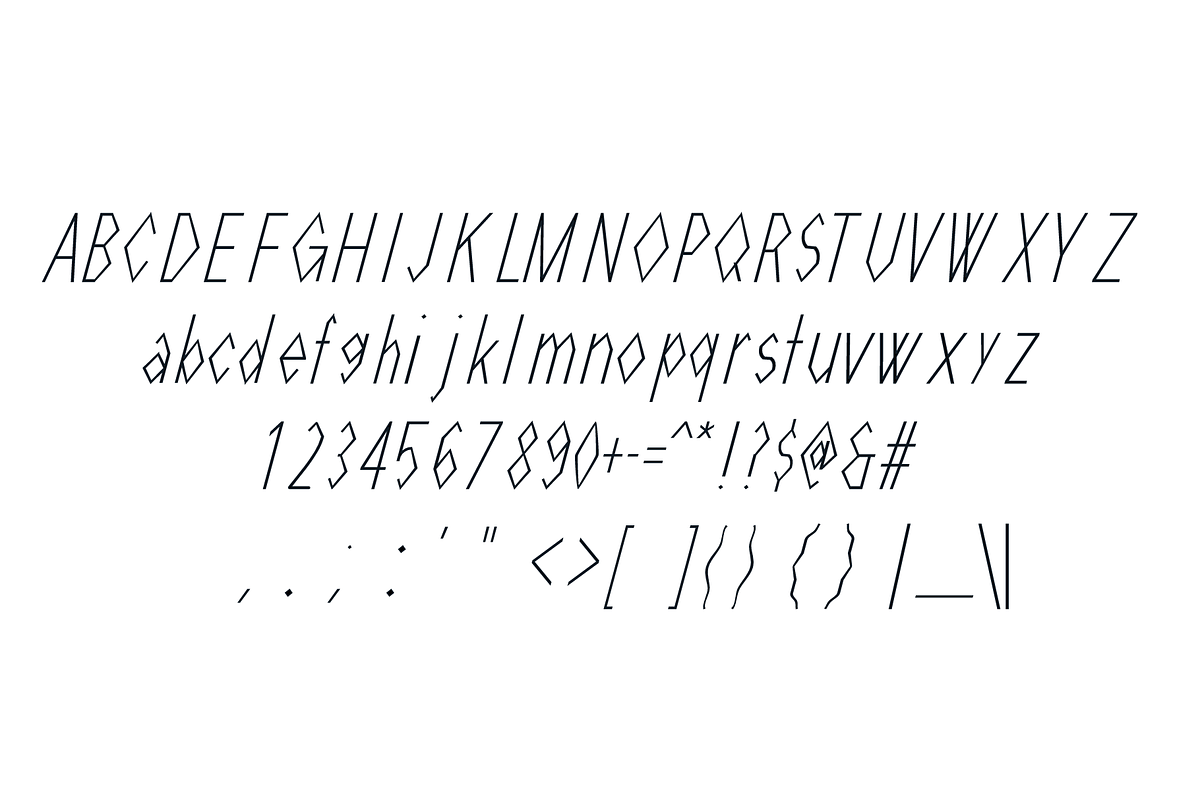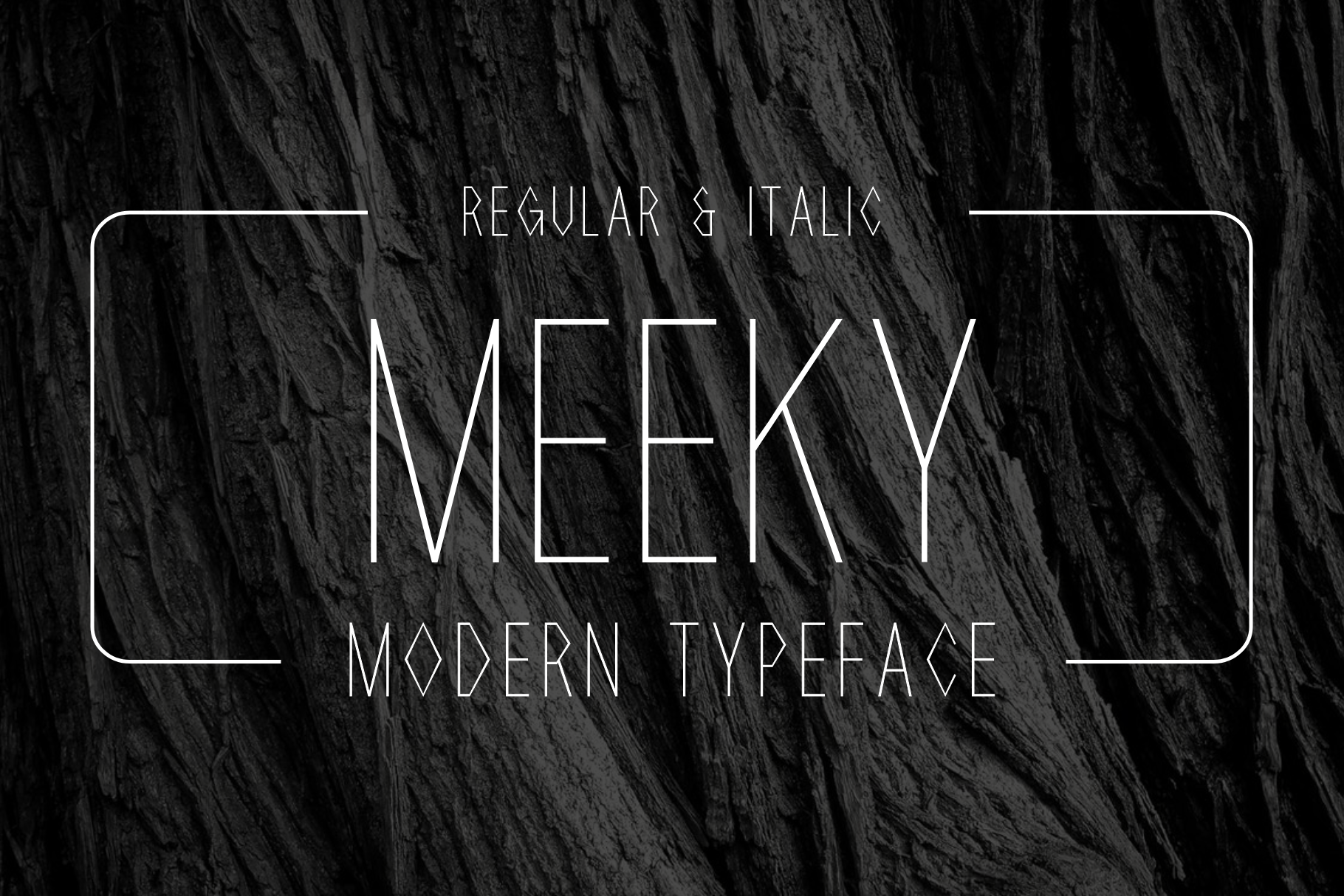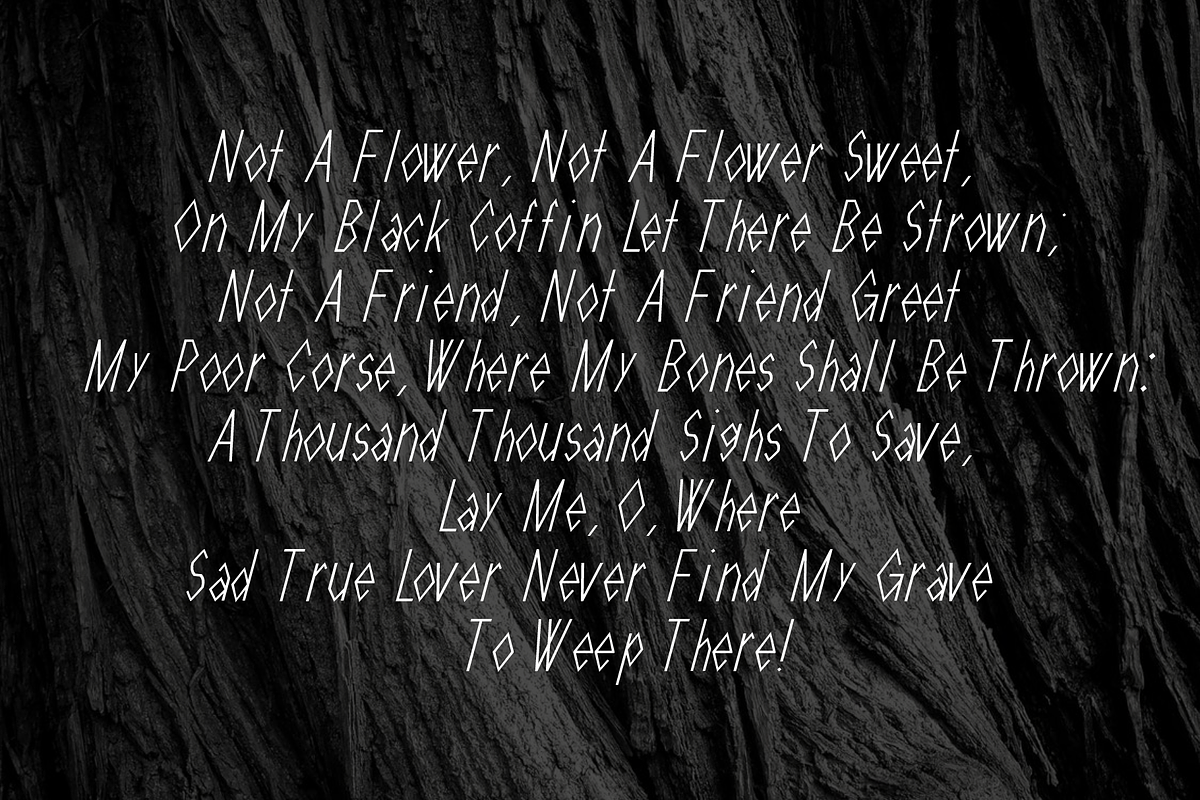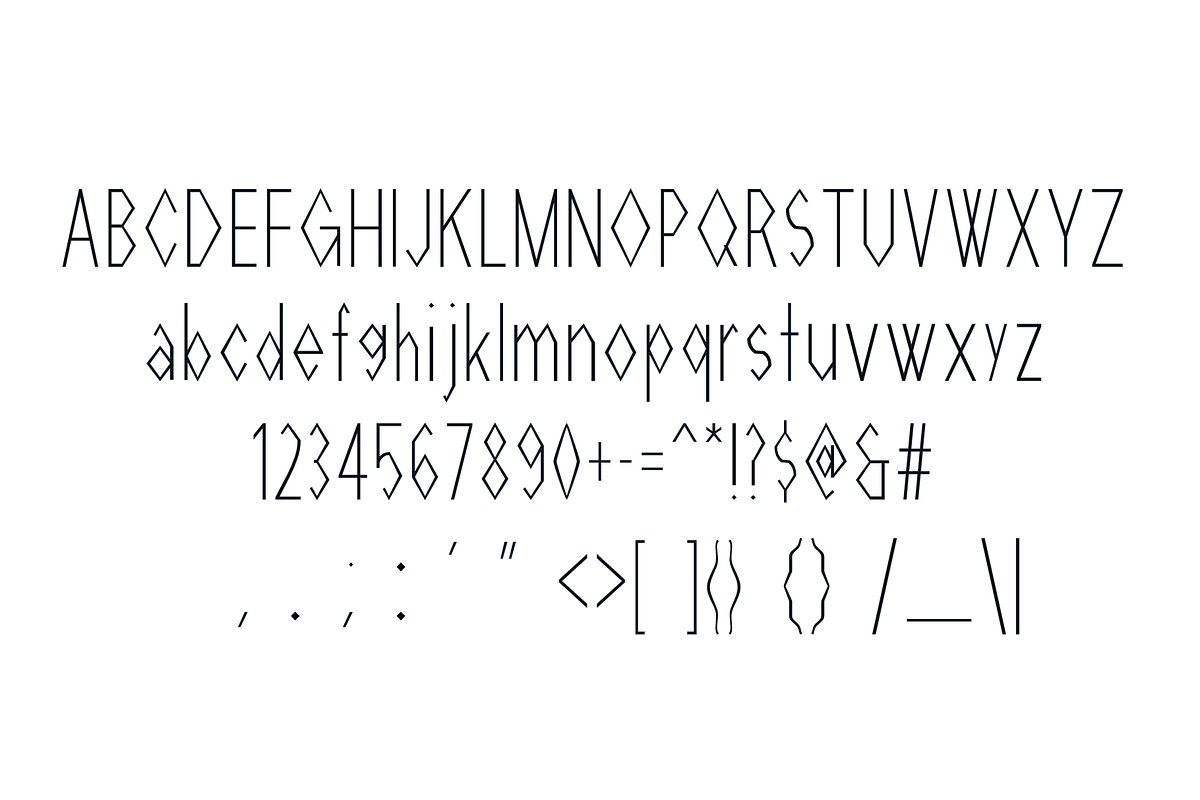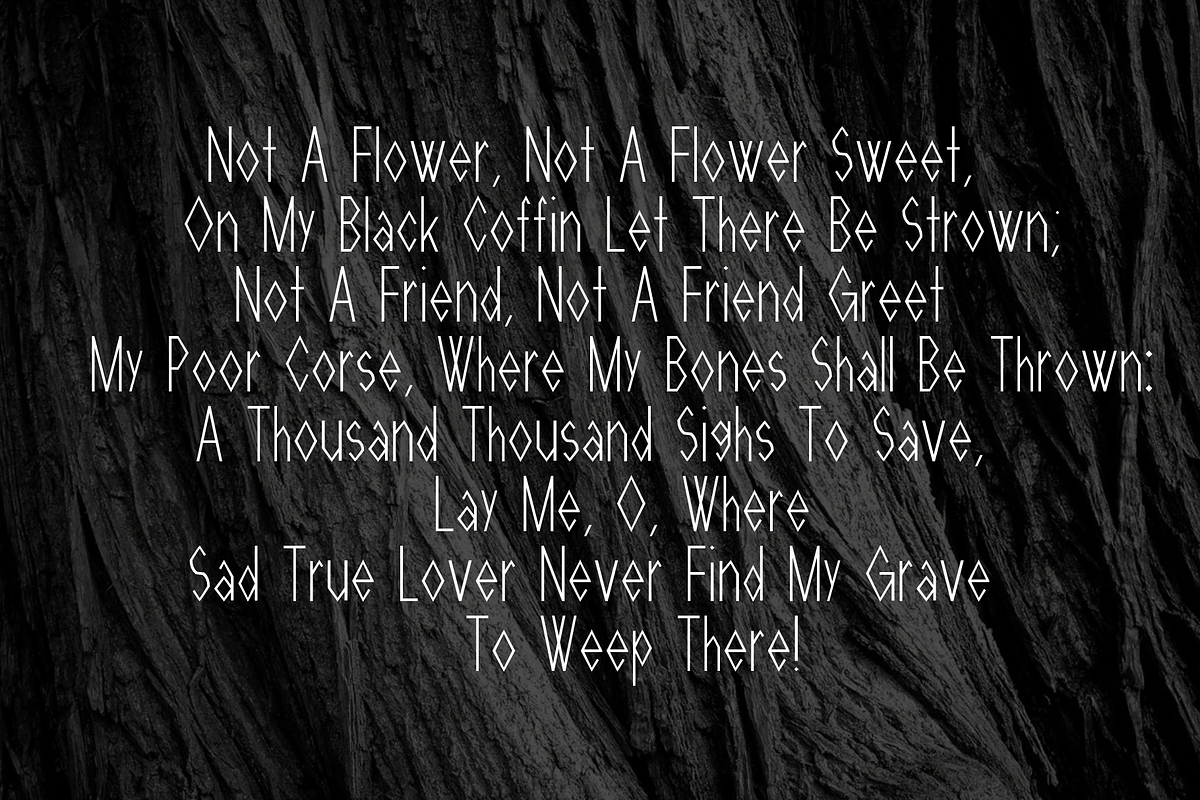
Meeky - Modern Typeface
Meeky- beautifully crafted modern typeface with 2 styles for your awesome projects.
- Consistency
- Well organized
- Easy to use